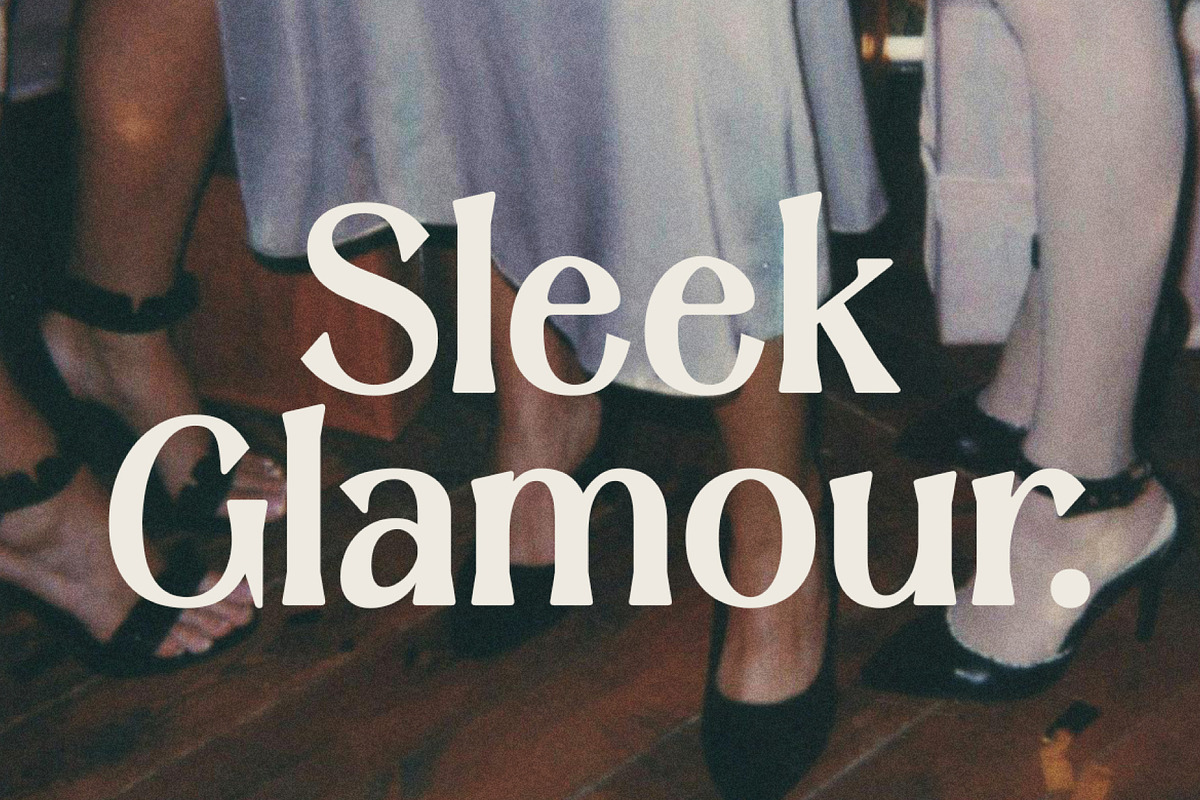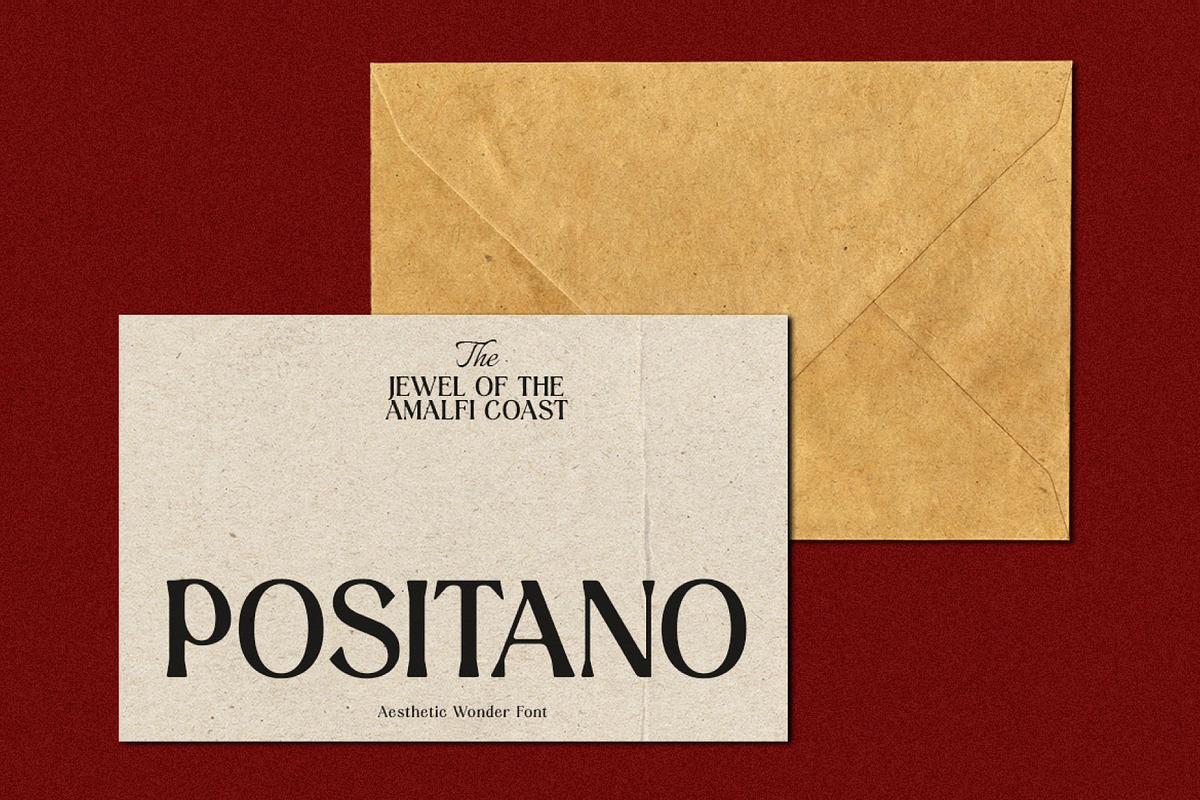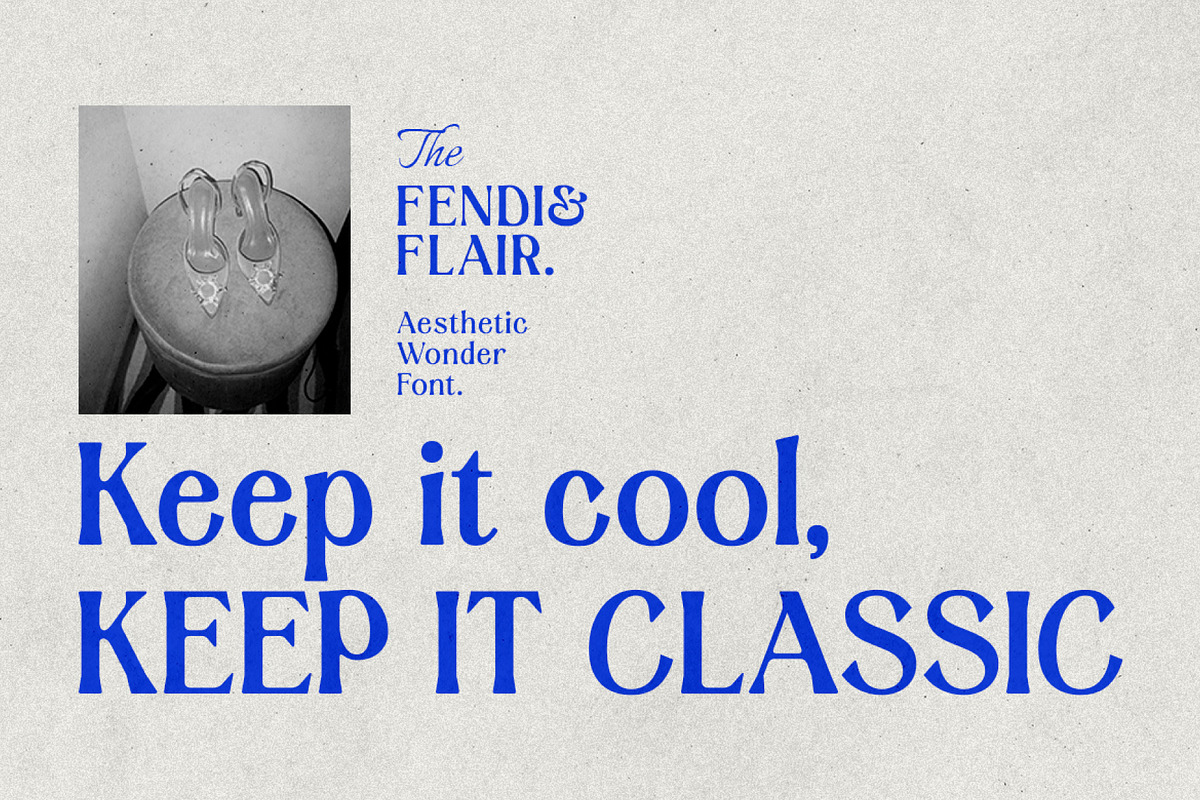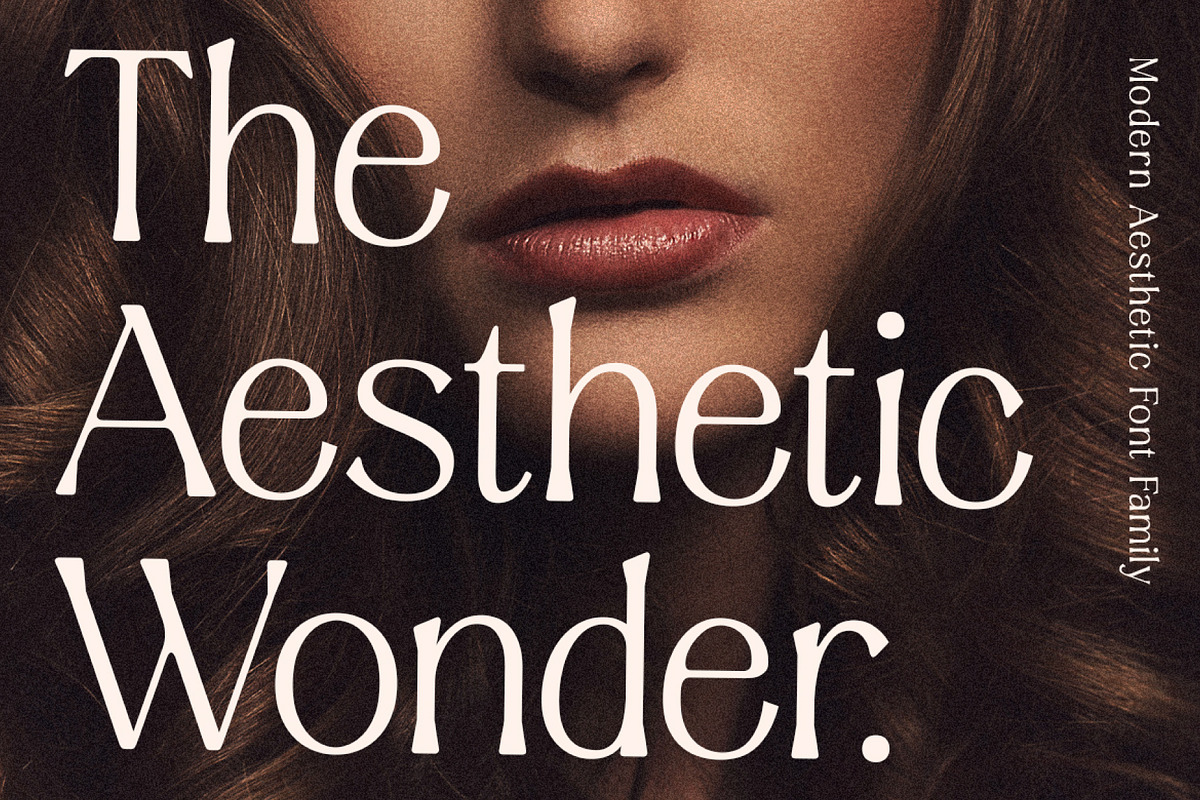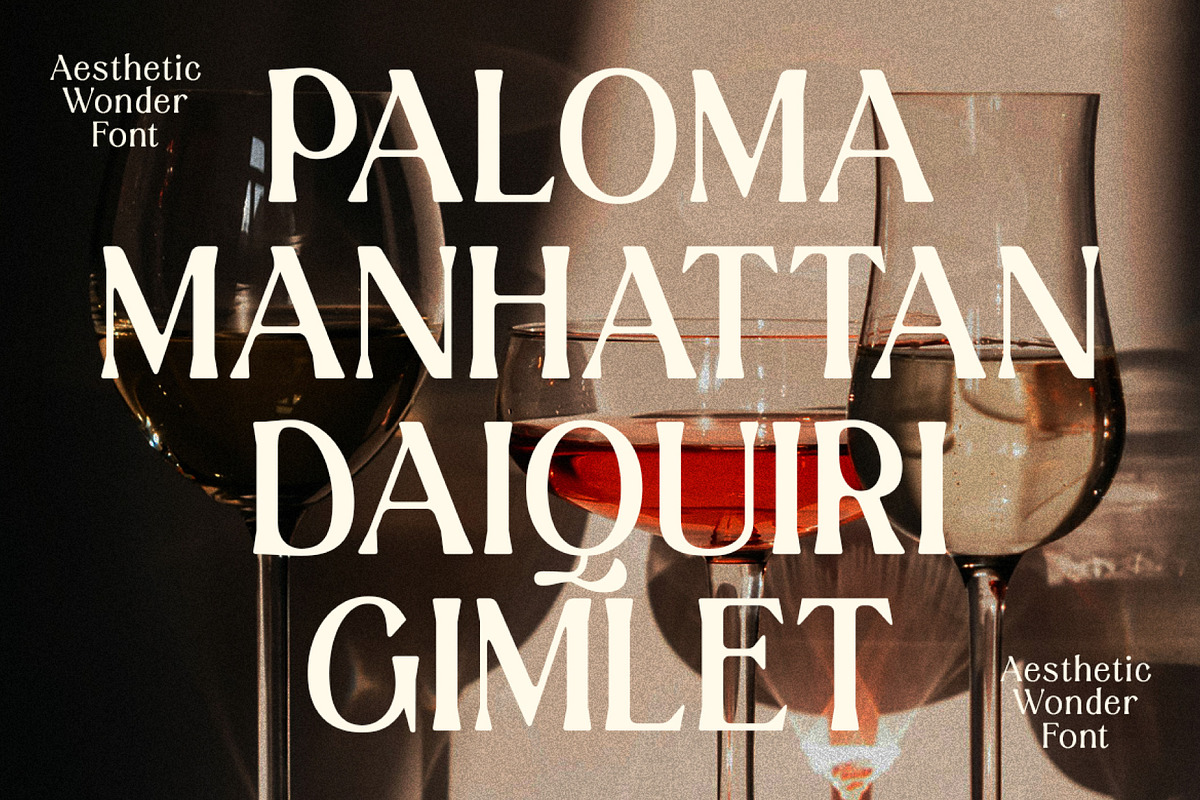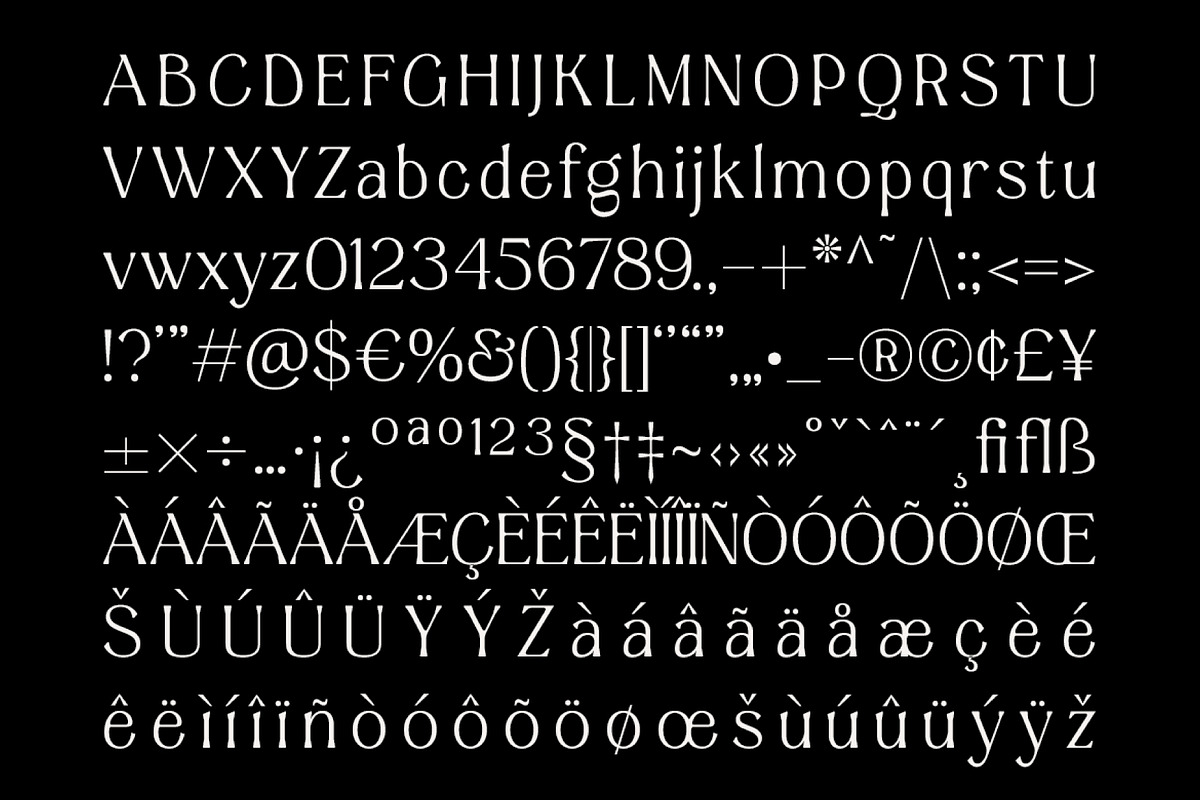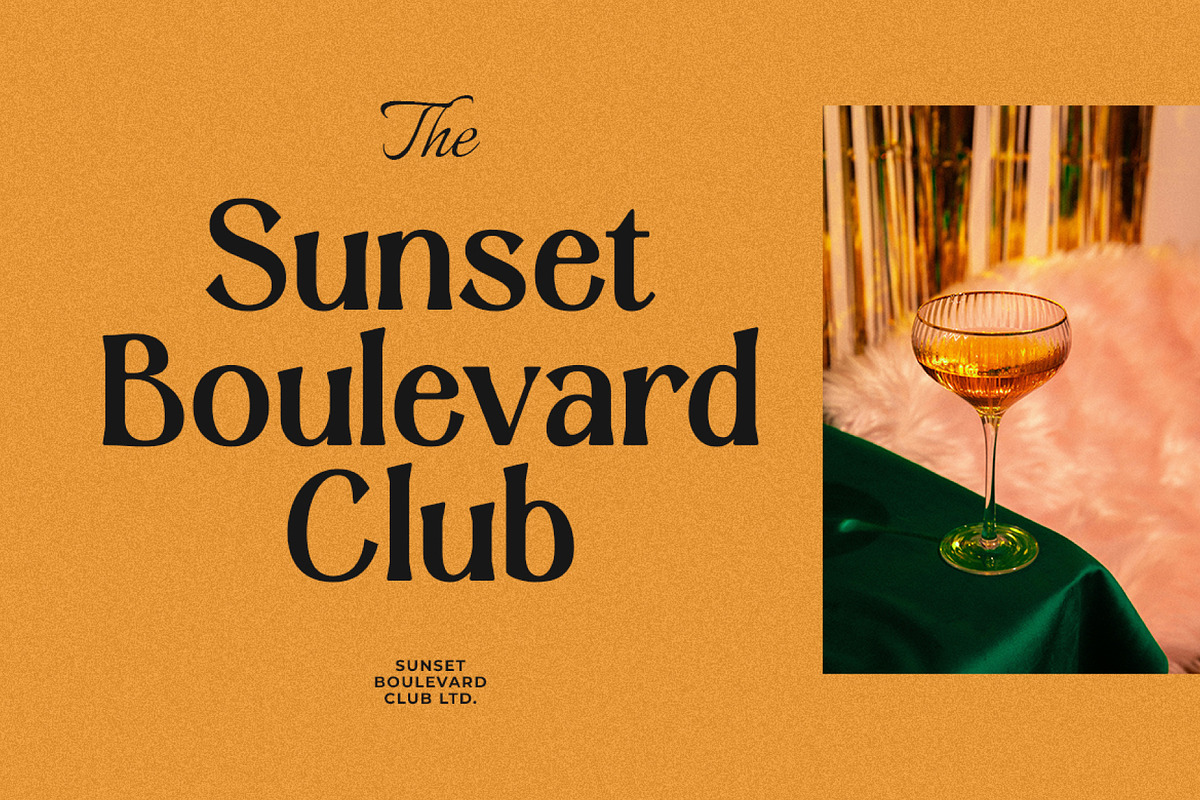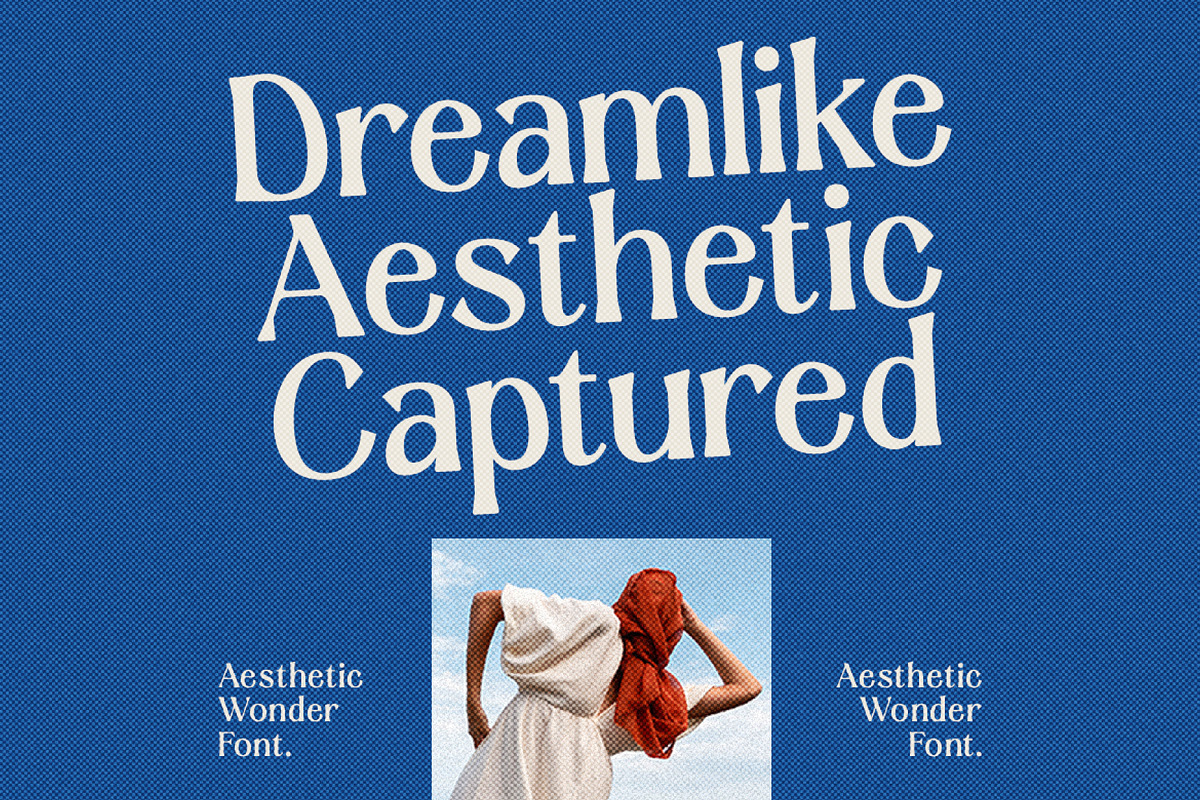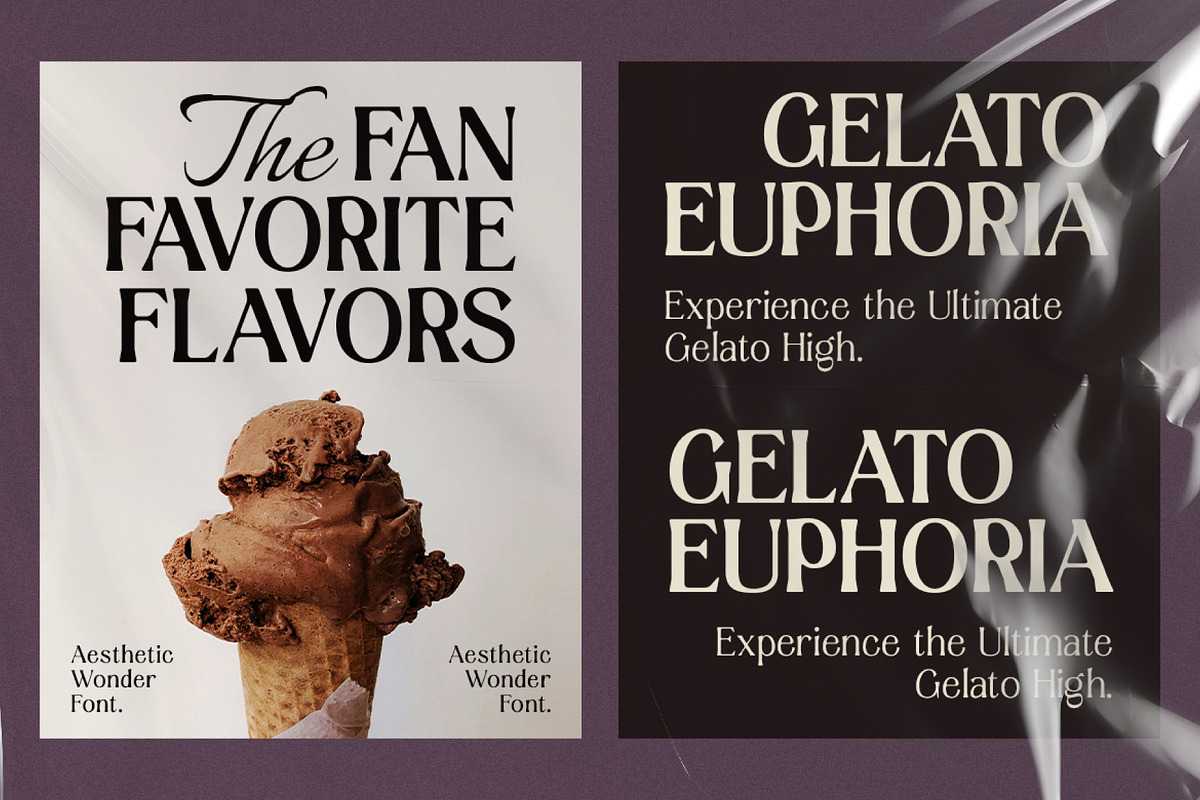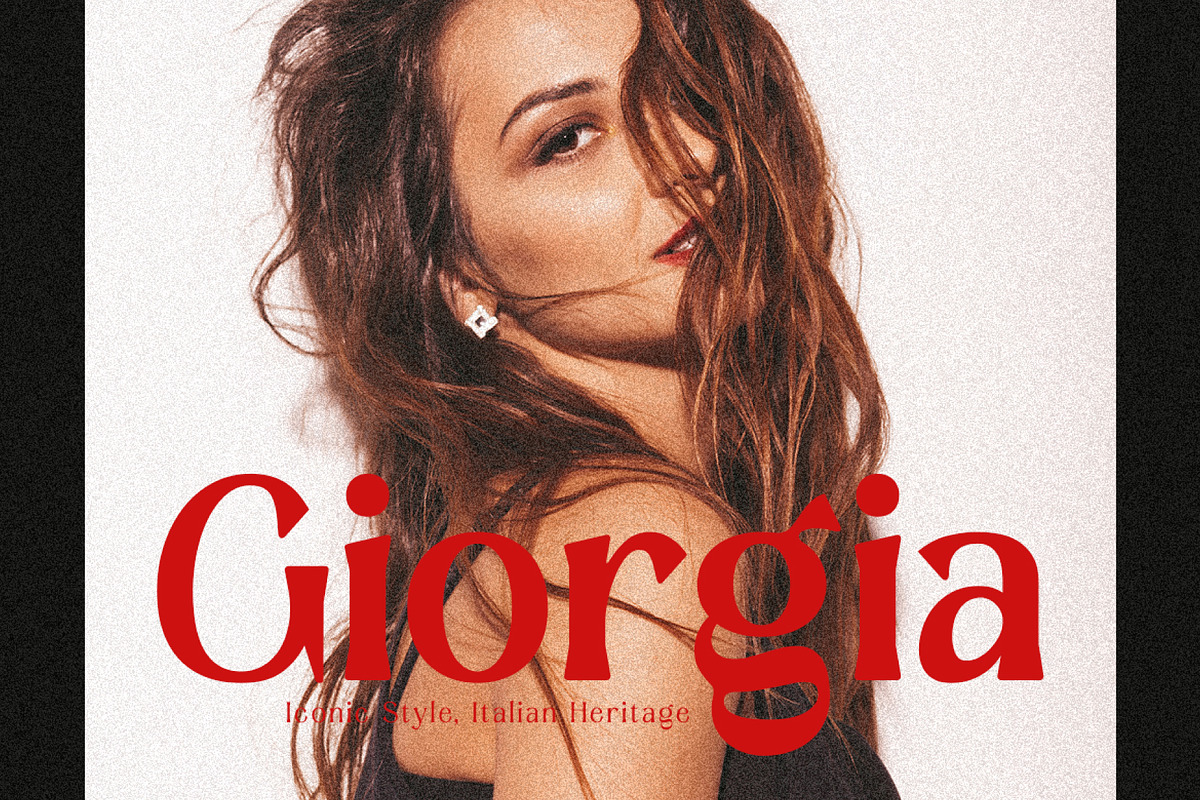
Aesthetic Wonder - Modern Aesthetic
Aesthetic Wonder - Modern Aesthetic Font Family
Discover the elegance and sophistication of Aesthetic Wonder, a modern serif font family designed to elevate your design projects. With 8 meticulously crafted weights and the flexibility of variable fonts, Aesthetic Wonder seamlessly blends classic elegance with a contemporary touch. Perfect for branding, logos, posters, and beyond, this font family delivers unparalleled versatility and a timeless aesthetic. Choose Aesthetic Wonder to transform your visual identity and make a lasting impression.
- Features: Uppercase, Lowercase, Numeral, Punctuation & Multilingual.
- Multilingual contained: Afrikaans, Albanian, Asu, Basque, Bemba, Bena, Breton, Catalan, Chiga, Cornish, Danish, Dutch, English, Estonian, Filipino, Finnish, French, Friulian, Galician, German, Gusii, Indonesian, Irish, Italian, Kabuverdianu, Kalenjin, Kinyarwanda, Luo, Luxembourgish, Luyia, Machame, Makhuwa-Meetto, Makonde, Malagasy, Manx, Morisyen, North Ndebele, Norwegian Bokmål, Norwegian Nynorsk, Nyankole, Oromo, Portuguese, Quechua, Romansh, Rombo, Rundi, Rwa, Samburu, Sango, Sangu, Scottish Gaelic, Sena, Shambala, Shona, Soga, Somali, Spanish, Swahili, Swedish, Swiss German, Taita, Teso, Uzbek (Latin), Volapük, Vunjo, Zulu.